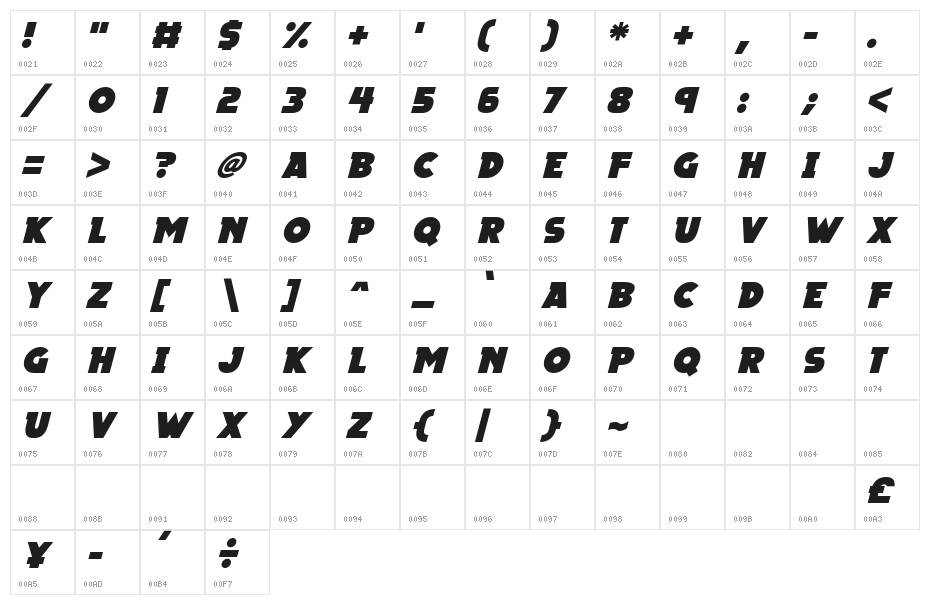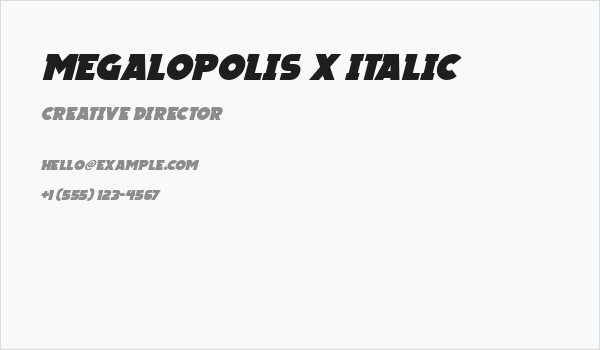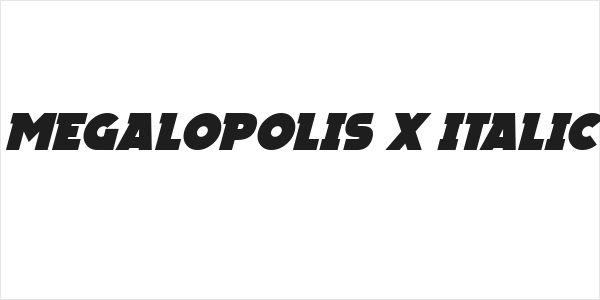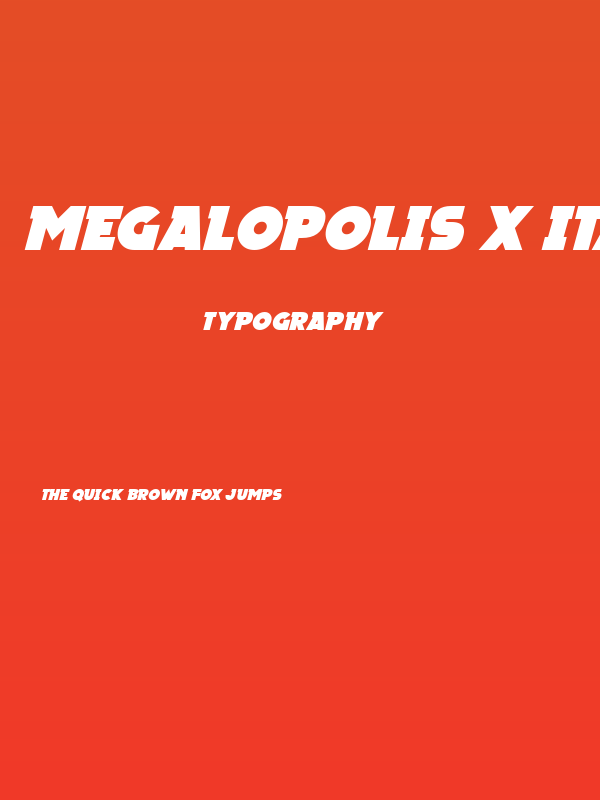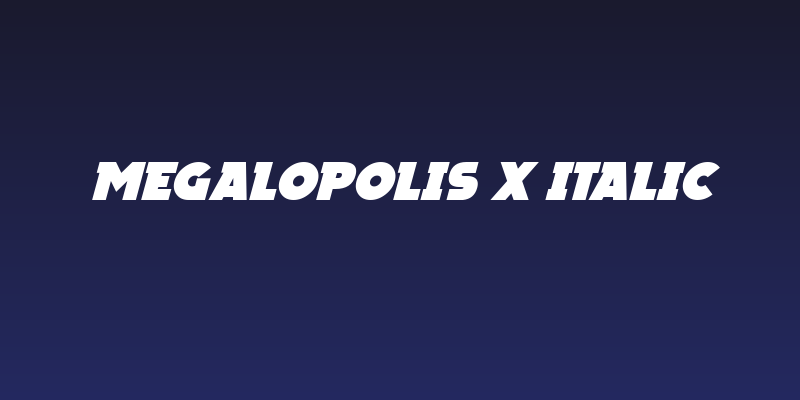
Megalopolis X Italic Font
Megalopolis X Italic Description
This font features a bold and dynamic style with a strong italic slant, giving it a sense of motion and energy. The characters are thick and robust, with a consistent stroke width that emphasizes their boldness. The design includes sharp angles and clean lines, creating a modern and impactful appearance. The uppercase and lowercase letters maintain a uniform look, while the numerals and special characters are designed to match the overall aesthetic. This font is ideal for projects that require a strong visual presence and a contemporary feel.
| Proposed Projects | Ideal for headlines, posters, branding, and advertising materials that need a bold and energetic look. |